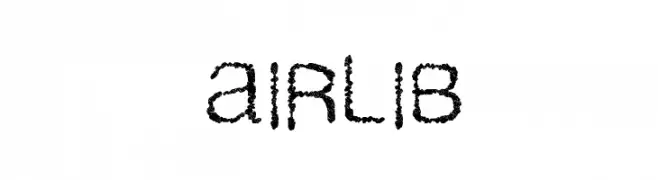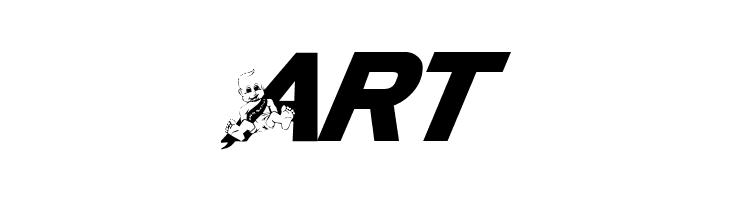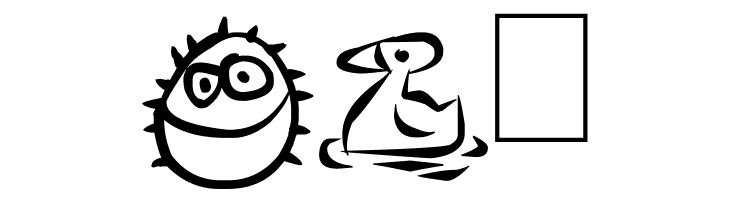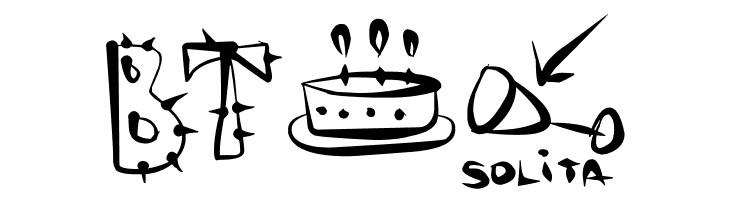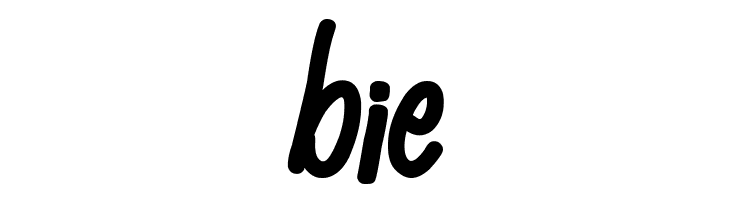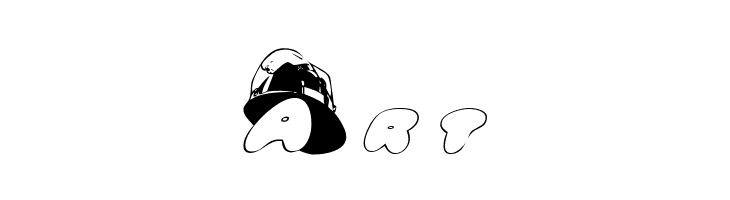
( Fonts by Peter Wiegel - www.peter-wiegel.de )
A bold, dynamic font with rounded, smooth characters and a slight slant.
( Fonts by Sean Type )
A modern blend of handwritten script and sans-serif styles.
A bold, expressive handwritten font with dynamic strokes and cursive connections.
( Fonts by www.junkohanhero.com )
A hand-drawn, sketch-like font with irregular strokes and a casual, artistic vibe.
( Fonts by Quiccs )
A bold, geometric font with a modern, industrial style.
( Fonts by Christopher Hansen )
A whimsical, decorative font with intricate swirls and a vintage, storybook feel.
A bold, textured font with a handcrafted feel and strong presence.
( AZCRTV Studio - Abdul Azis - www.instagram.com/creativitaz/ )
A lively, flowing script font with elegant, elongated letterforms.
( Fonts by Luis Angel Uribe - luisangeluribe.wordpress.com )
A playful, hand-drawn font with a whimsical and casual style.
( Fonts by Luis Angel Uribe - luisangeluribe.wordpress.com )
A whimsical, decorative font with playful, creature-like embellishments.
( Fonts by Luis Angel Uribe - luisangeluribe.wordpress.com )
A playful, hand-drawn font with a whimsical, doodle-like style.
( Stork - Vextorart Stork - www.vextorart.blogspot.com )
A bold, playful font with a handwritten marker style.
A bold, slab serif font with a strong, structured appearance.
A bold, decorative font with a unique textured pattern.
( Justin Biddle - estudio.co.nz )
A bold, condensed font with a modern and impactful style.
A bold, distressed font with a grunge texture, ideal for edgy designs.
A bold, textured font with a playful, hand-drawn style.
A bold, industrial font with a distressed, eroded effect for a rugged look.
A modern, slanted script font with fluid, connected characters.
A bold, expressive script font with flowing, cursive letterforms.
A bold, geometric font with a modern and clean aesthetic.
( oohlalaartsy.blogspot.com )
A playful and eclectic font with unique designs for each character.
( Fonts by Rodrigo German - RASDESIGN )
A playful, hand-drawn font with bold, rounded letters and a whimsical style.